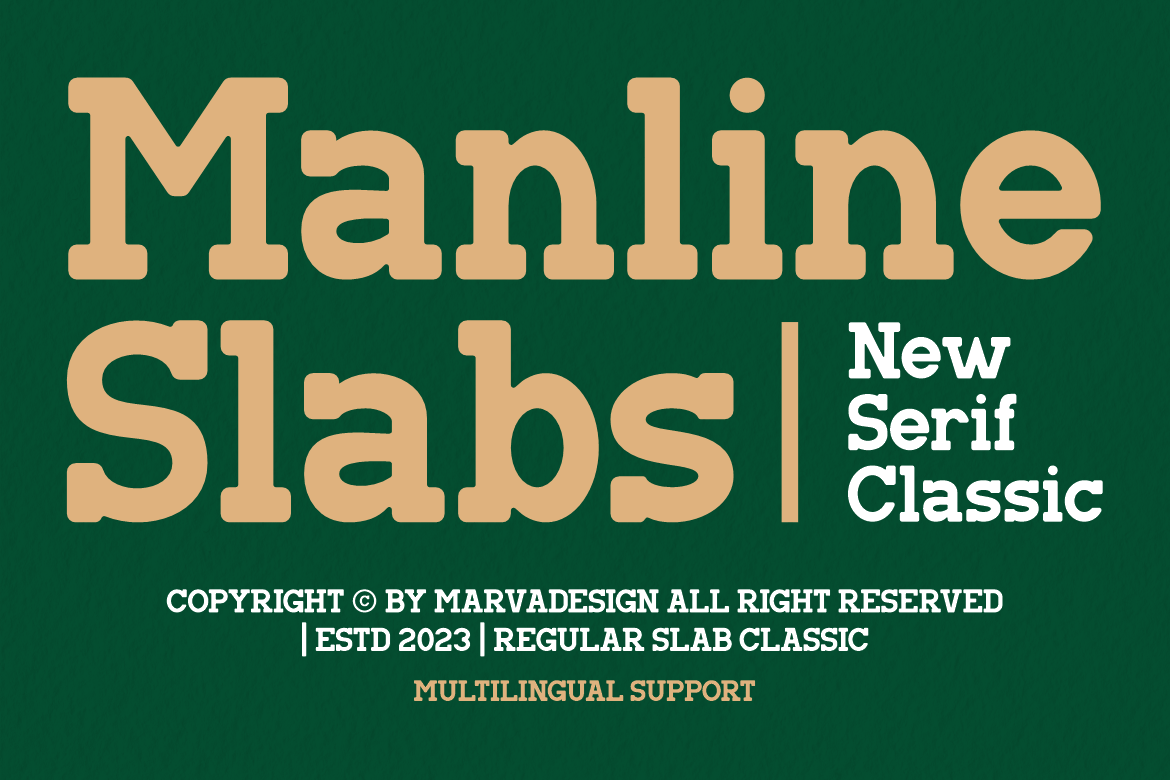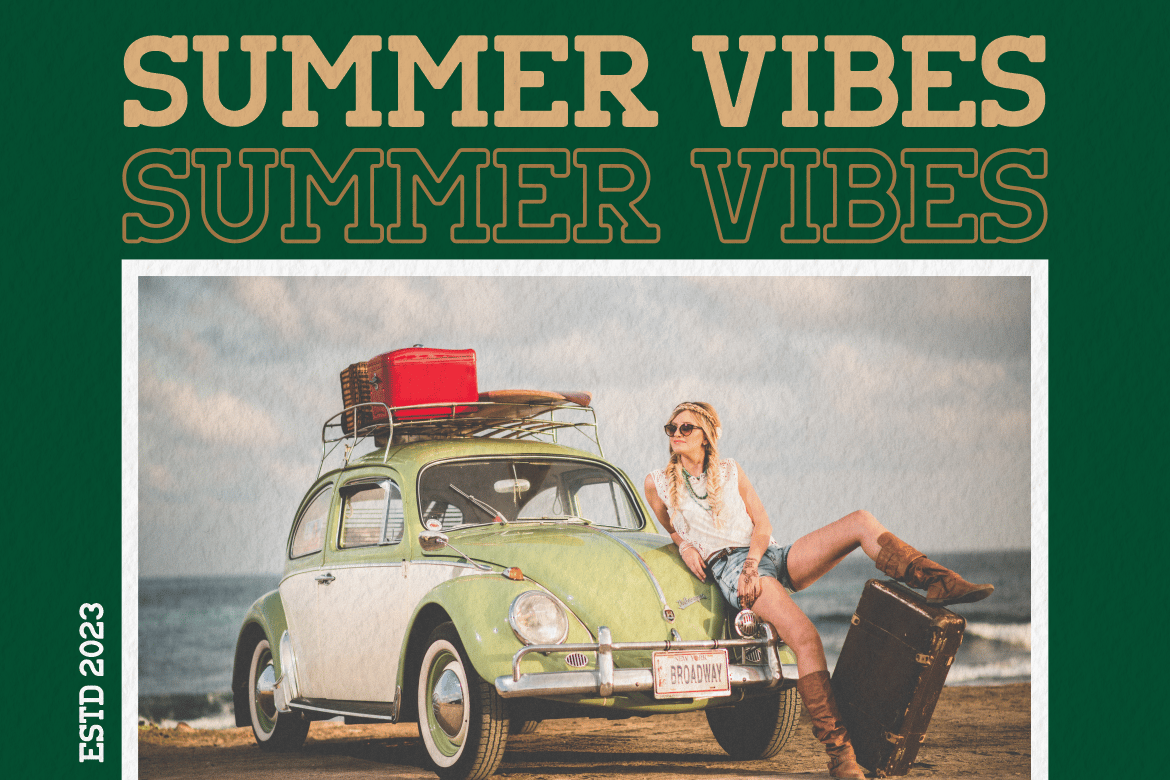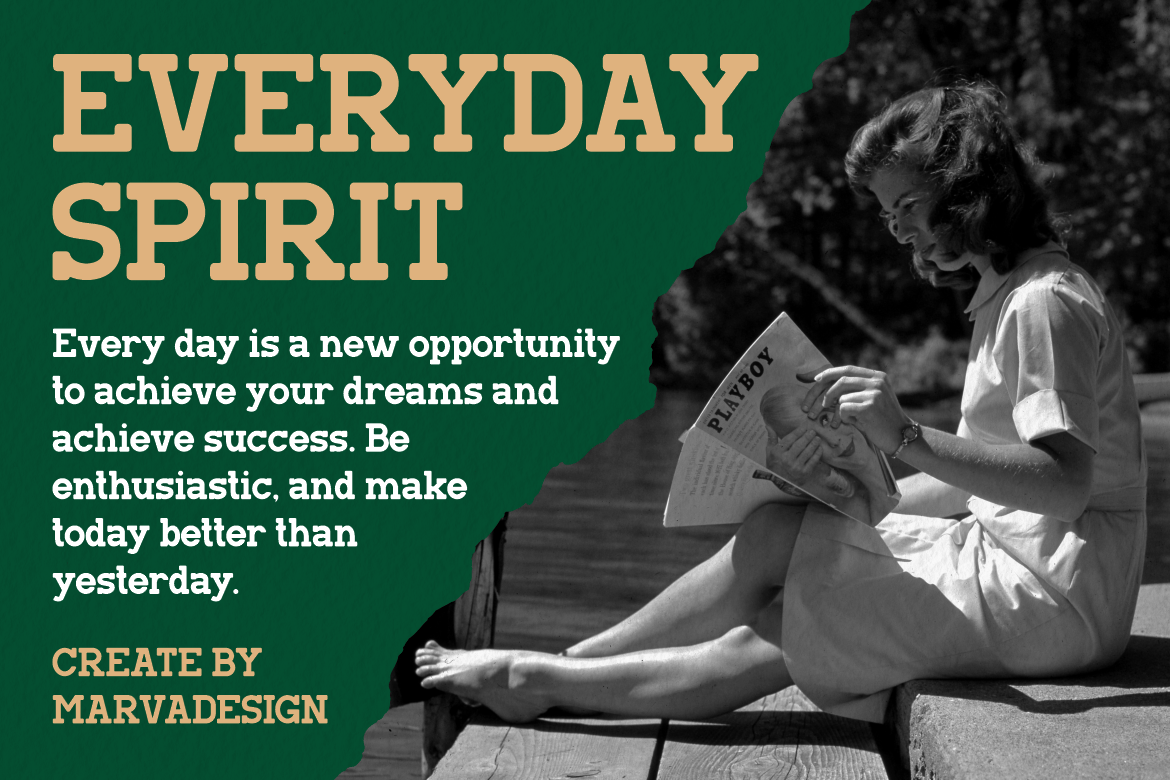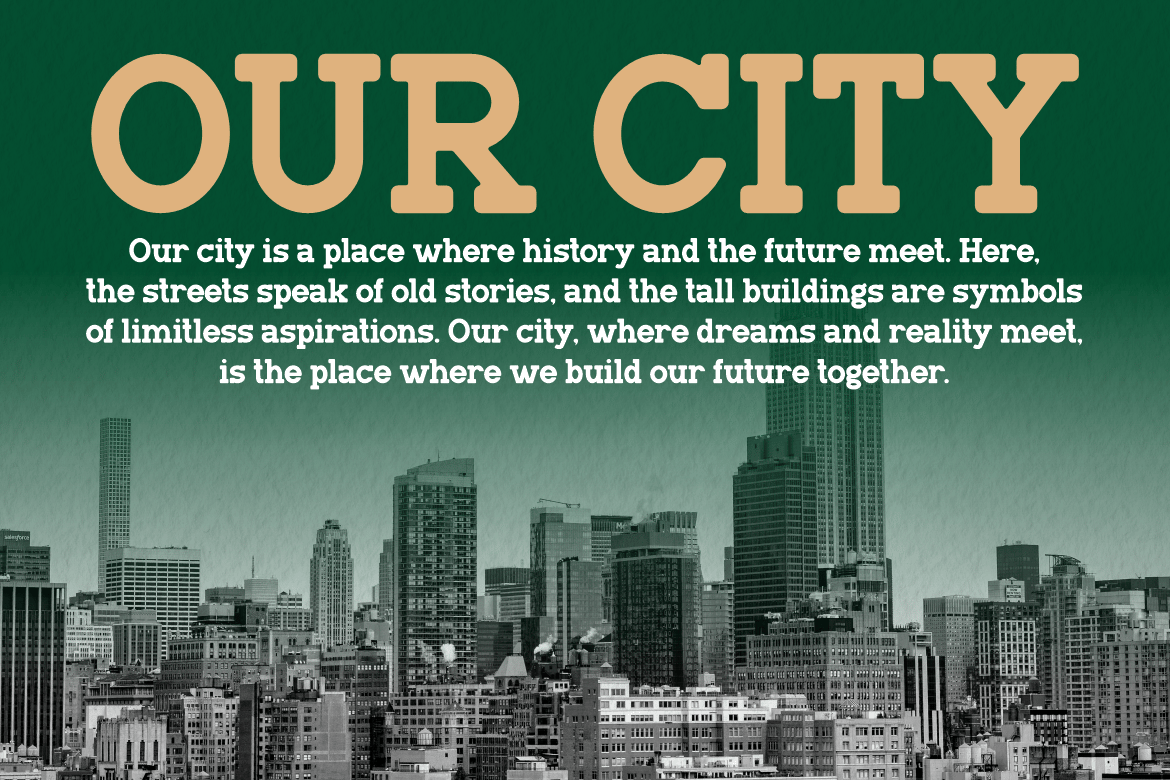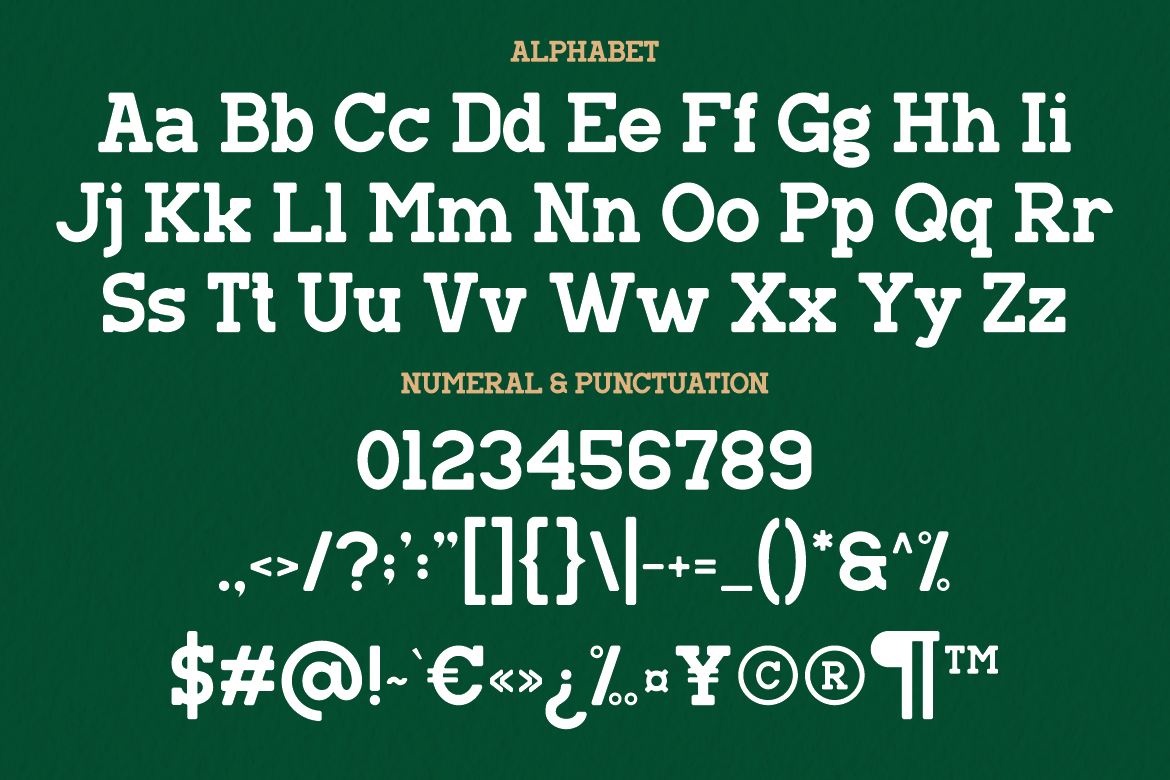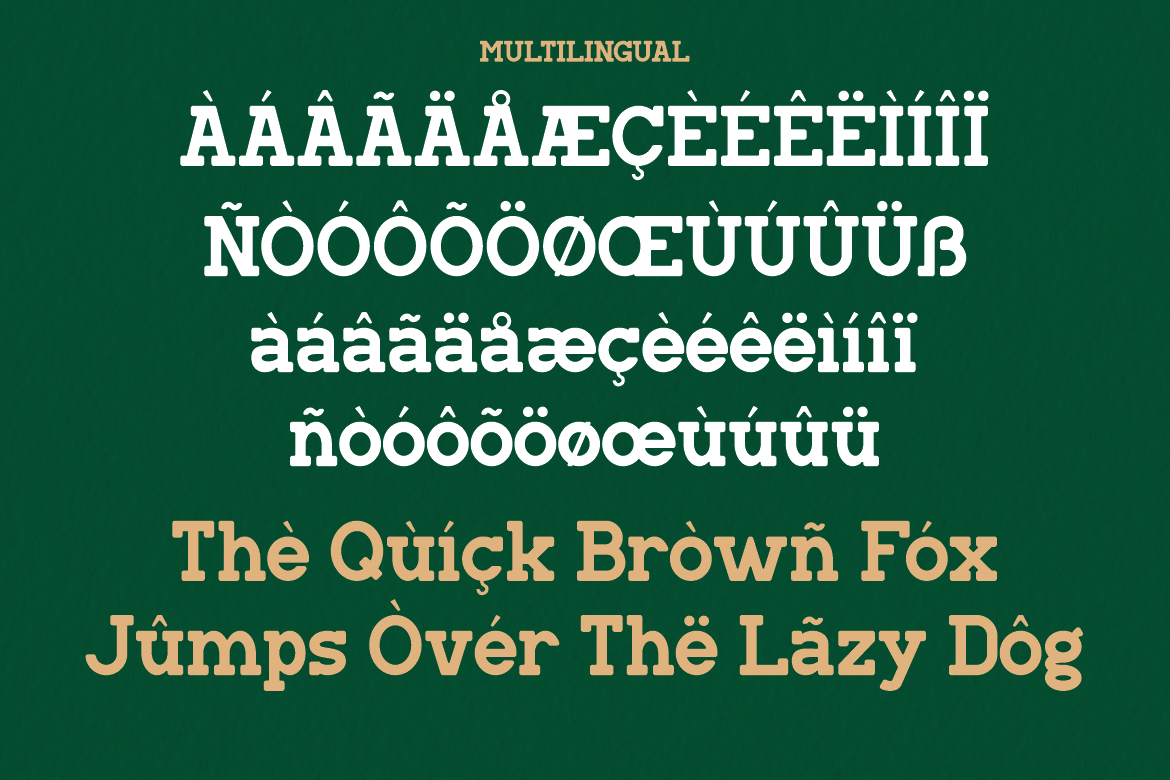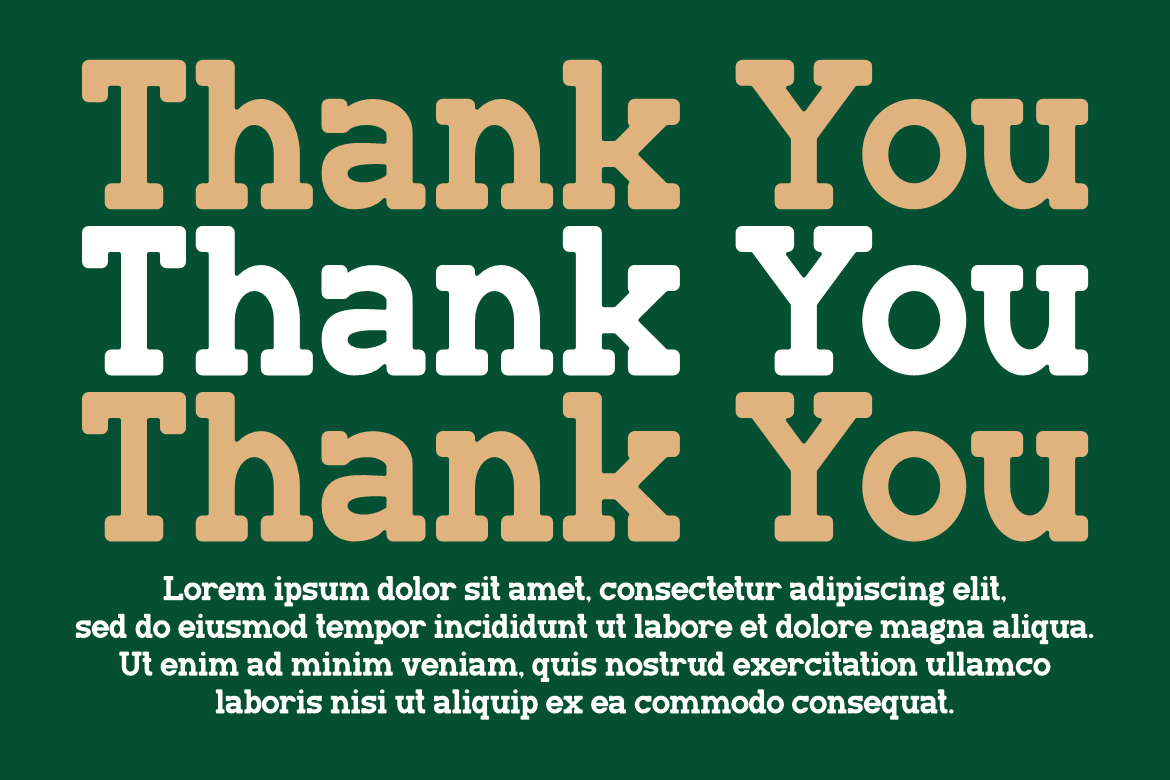
Manline Slabs – A Classic Slab Font
Manline Slabs  Font – Modern Serif Font is a Christmas authentic display font. The font is suitable for any branding project like logo, Template Design, Product and many more. outstanding in a wide range of contexts.